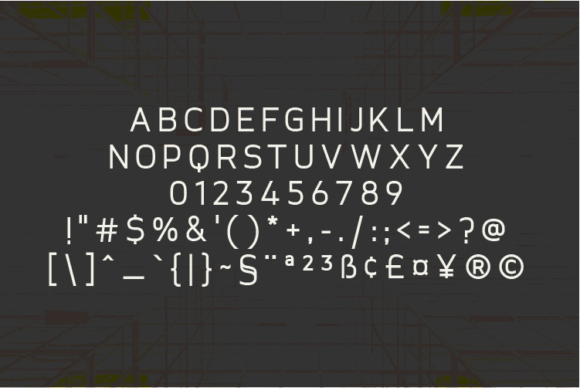
Unlocking the Perfect Blend of Style and Versatility
Imagine you’re brainstorming a new project, surrounded by scribbled notes, color swatches, and an endless sea of font options. You’re searching for the perfect combination of style and functionality to make your design truly stand out. This is where the Arkqunie Semi-Bold Font comes in – a game-changing typeface that’s about to become your go-to companion.
This versatile sans serif font is designed to adapt to any creative situation, from bold headlines to subtle typography. With its unique geometric features and maximum flexibility, the Arkqunie Semi-Bold Font is perfect for a wide range of applications, from business cards and logos to magazines and posters. As a designer, you’ll appreciate its value in elevating your designs and giving them that extra oomph.
Arkqunie Semi-Bold Font Key Features
- Font Family: Arkqunie Semi-Bold, a unique sans-serif font designed for modern applications.
- Unique Characteristics: The Arkqunie Semi-Bold font features a distinctive balance of modernity and elegance, making it suitable for a wide range of applications, from corporate branding to digital interfaces.
Arkqunie Semi-Bold Font Review
I recently had the chance to work with the Arkqunie Semi-Bold font, and I must say it’s been an interesting experience. Here are my thoughts:
- Unique character set: The font has a distinctiveness that sets it apart from more common sans-serif fonts.
- Good legibility: Even at smaller font sizes, the text remains clear and easy to read.
- Modern aesthetic: The font’s semi-bold weight gives it a sleek, contemporary feel that’s perfect for modern designs.
- Limited language support: The font only includes a limited character set, which may be a problem for designers who need to work with non-Latin scripts.
- Not ideal for body text: While the font is great for headlines and titles, it may not be the best choice for larger blocks of body text due to its semi-bold weight.
- May not be suitable for all audiences: The font’s unique style may not appeal to everyone, so it’s essential to test it with your target audience before committing to a design.
The Arkqunie Semi-Bold font is a great choice for designers who want to add some visual interest to their work. While it has some limitations, it’s a unique and stylish font that can add a touch of sophistication to your designs. Just be sure to test it thoroughly before committing to a project.
The Arkqunie Semi-Bold font is ideal for creating bold yet elegant headings and titles. Use it to add a touch of sophistication to your designs.
1. Creating marketing materials, such as brochures and flyers.
2. Designing business cards and letterheads.
3. Adding a bold touch to presentations and reports.
Alternatives to Arkqunie Semi-Bold Font
Montserrat Semi-Bold
Montserrat Semi-Bold is a sans-serif font designed for digital use. It’s a versatile font suitable for body text, headings, and titles. When to use: Use Montserrat Semi-Bold for clean and modern designs, especially in digital products and websites. Comparison: Montserrat Semi-Bold has a similar modern feel to Arkqunie Semi-Bold but with a slightly more geometric and condensed appearance.
Lato Semi-Bold
Lato Semi-Bold is a sans-serif font that offers a clean and elegant look. It’s suitable for a wide range of designs, from corporate materials to digital products. When to use: Use Lato Semi-Bold for designs that require a balance of modernity and sophistication. Comparison: Lato Semi-Bold has a softer and more rounded appearance compared to Arkqunie Semi-Bold, making it more suitable for designs that require a touch of warmth.